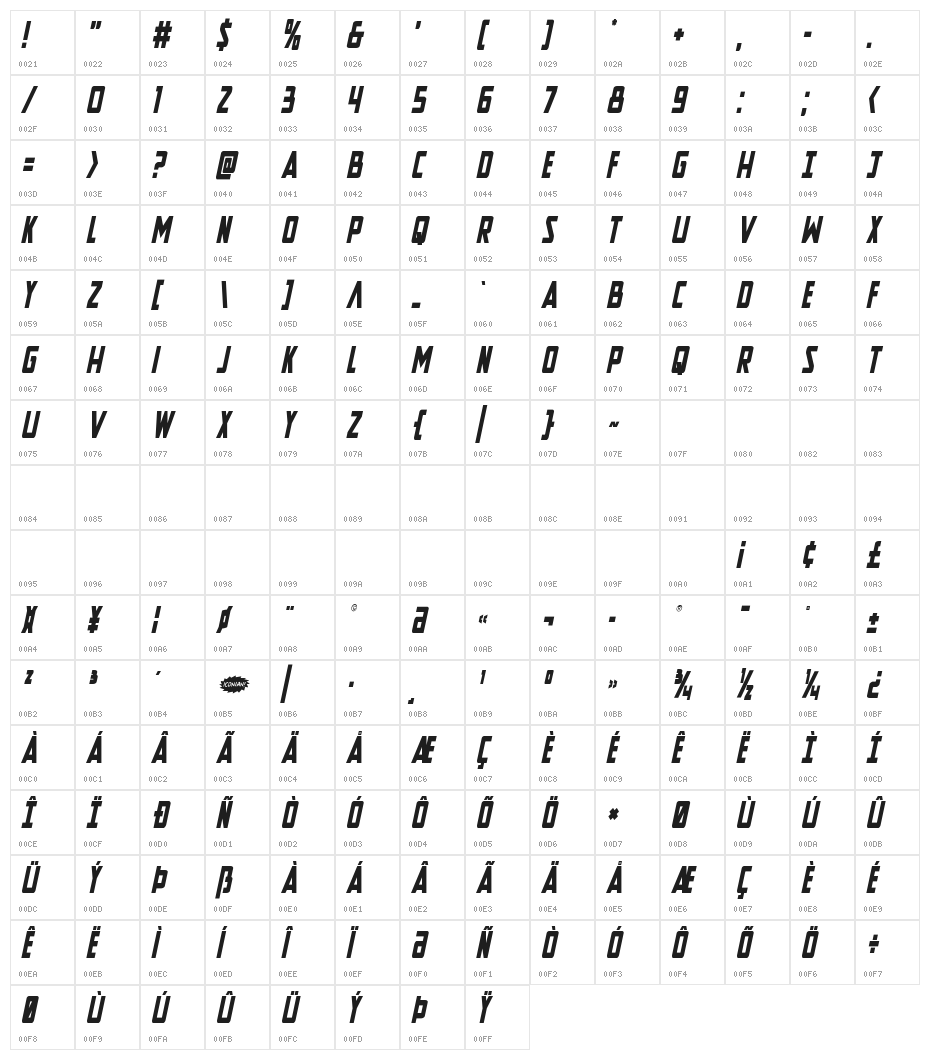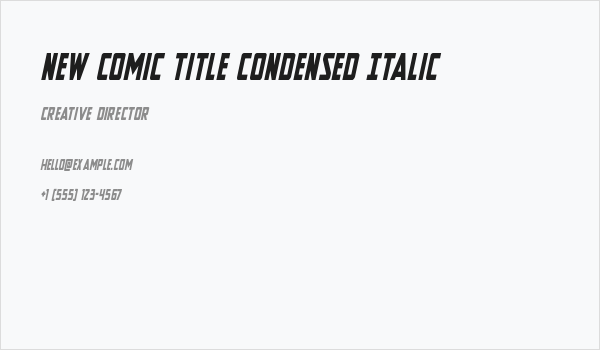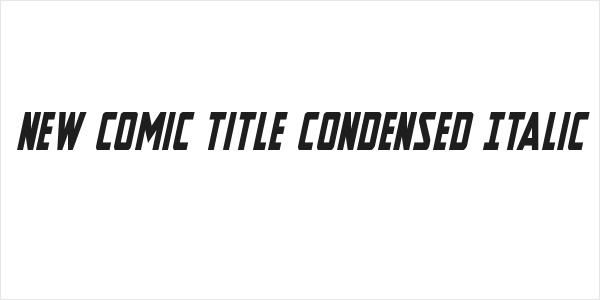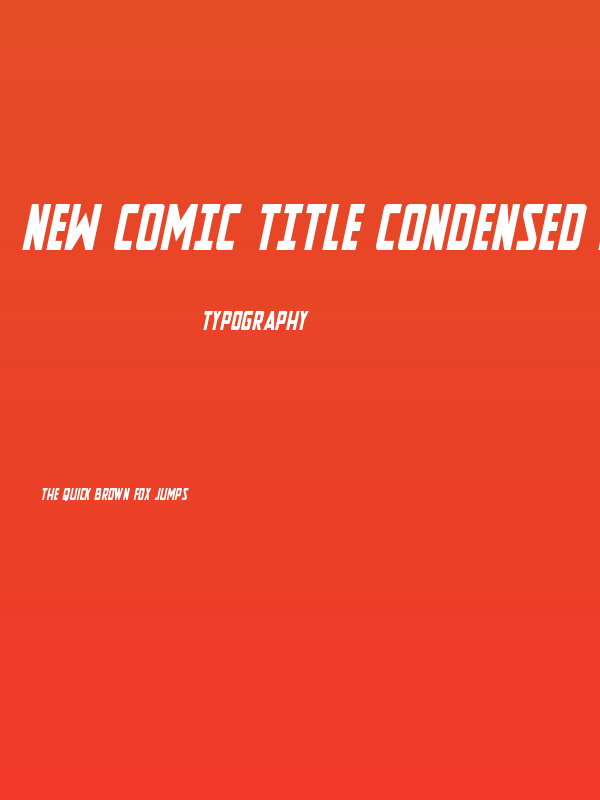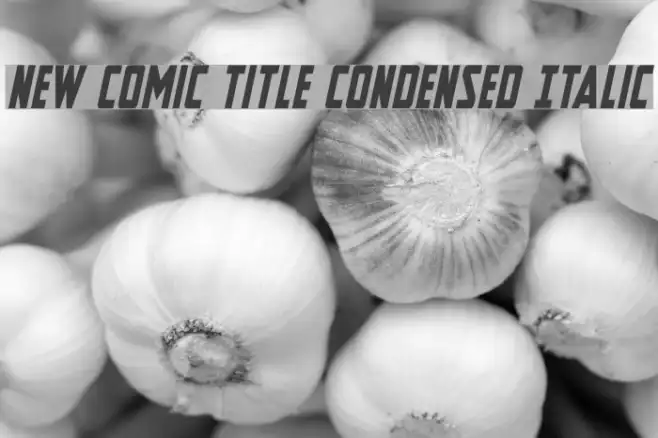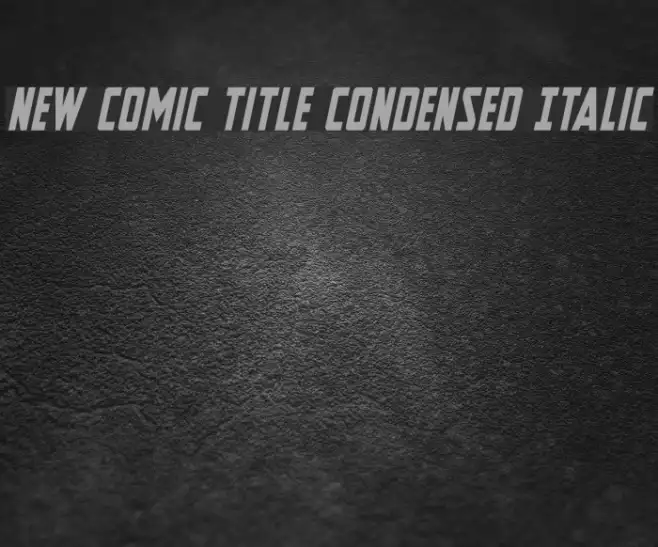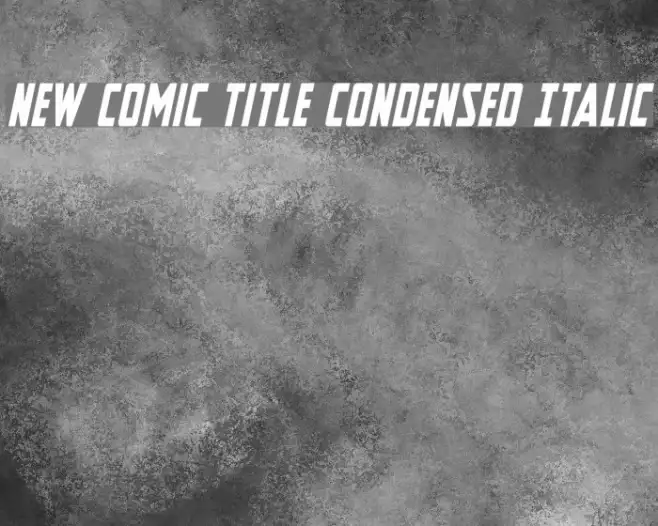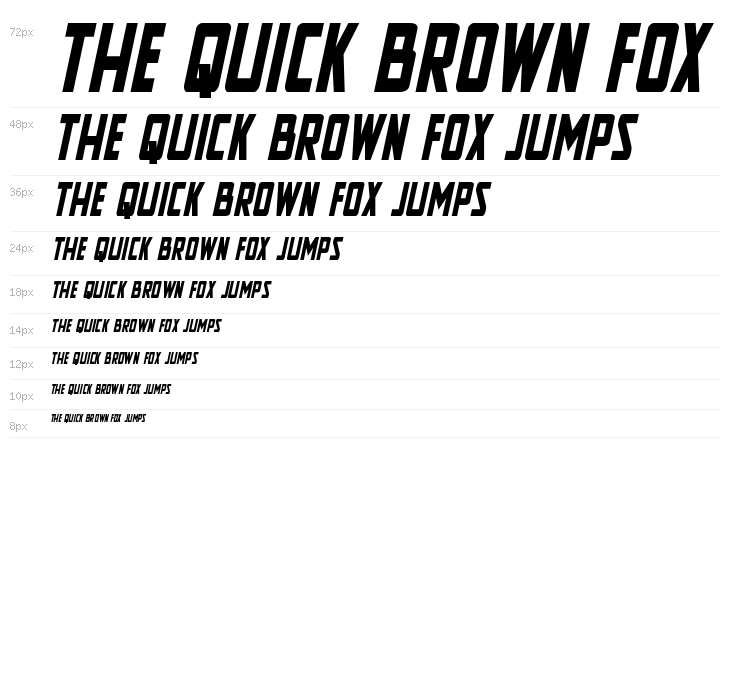
New Comic Title Condensed Italic Font
New Comic Title Condensed Italic Description
This font features a bold and dynamic style with a condensed and italicized form, giving it a sense of movement and energy. The characters are tightly spaced, enhancing its compact appearance. The strokes are consistent in thickness, providing a uniform look across all characters. Its angular and sharp edges contribute to a modern and edgy aesthetic, making it suitable for attention-grabbing designs. The font includes a full set of uppercase and lowercase letters, numerals, and a variety of special characters, ensuring versatility in usage.
| Proposed Projects | Ideal for comic book titles, posters, branding, and any project requiring a bold and energetic typeface. |